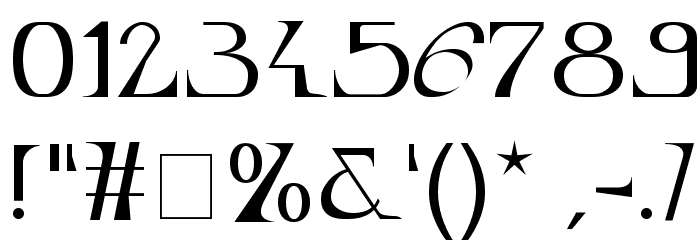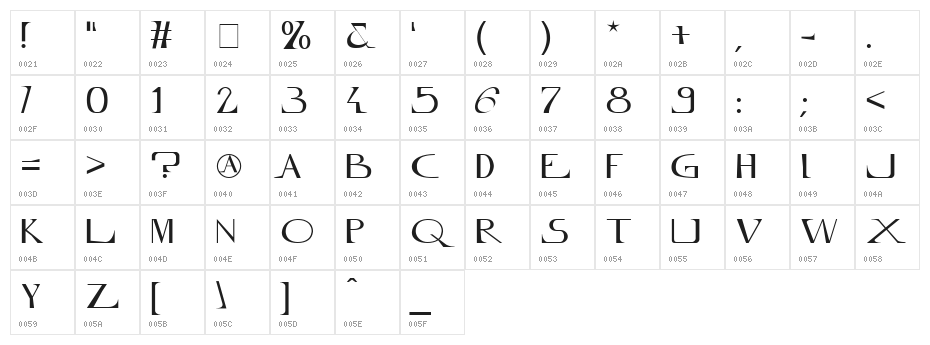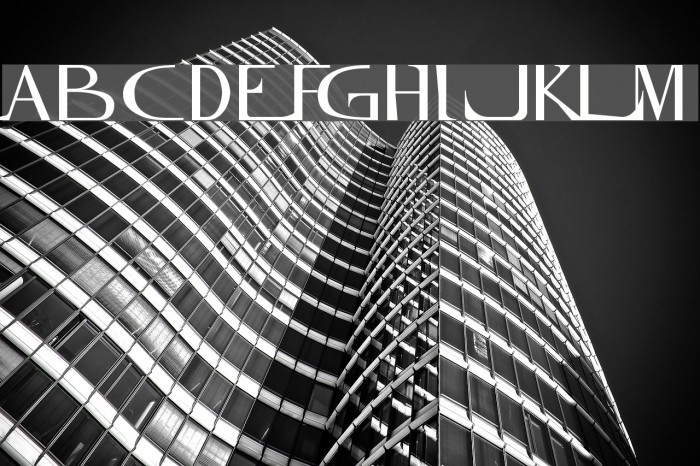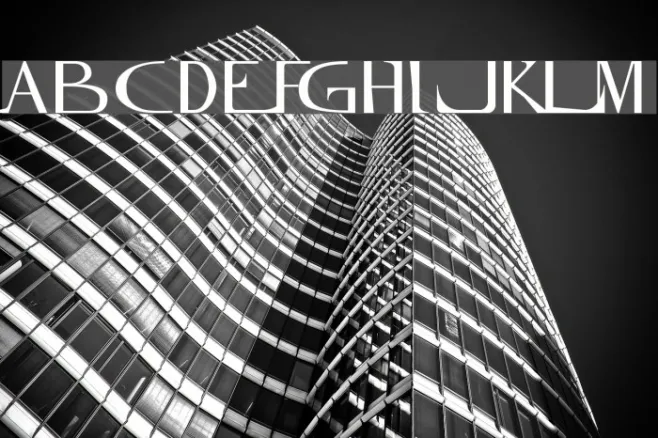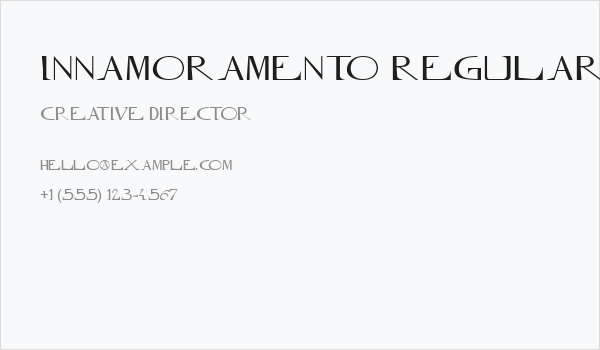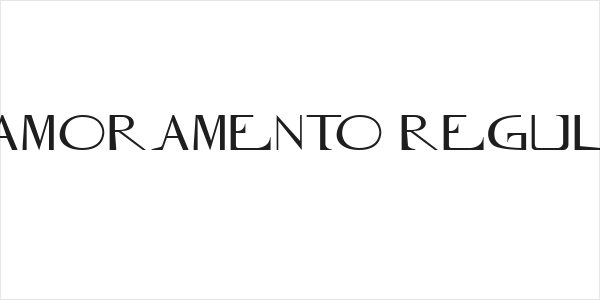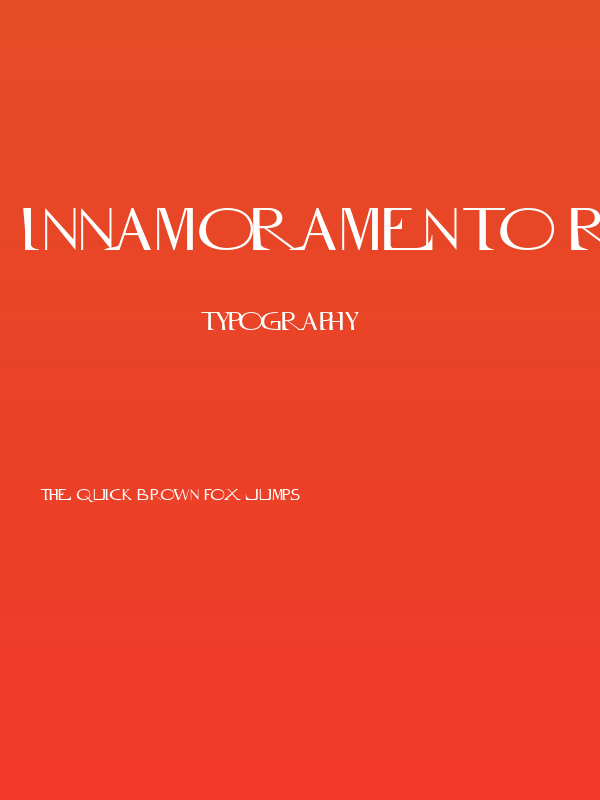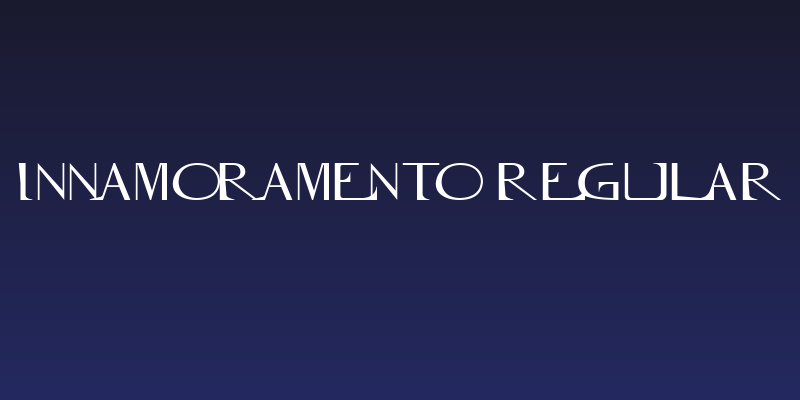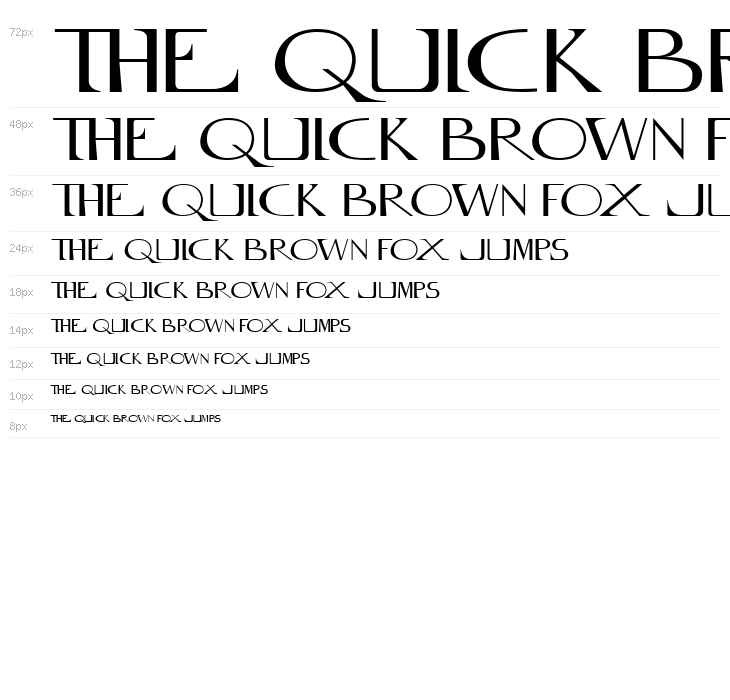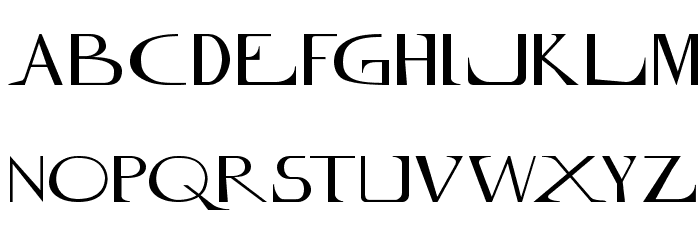
Innamoramento Regular Font
Innamoramento Regular Description
This font features a unique and artistic design with a modern flair. The characters are elegantly crafted with a mix of sharp and smooth curves, giving it a dynamic and stylish appearance. The uppercase letters have a distinctive angularity, while the lowercase letters maintain a more fluid form. The numerals are bold and easily readable, complementing the overall aesthetic. Special characters are designed with the same attention to detail, ensuring consistency throughout the typeface. This font stands out with its creative and sophisticated look, making it suitable for a variety of design projects.